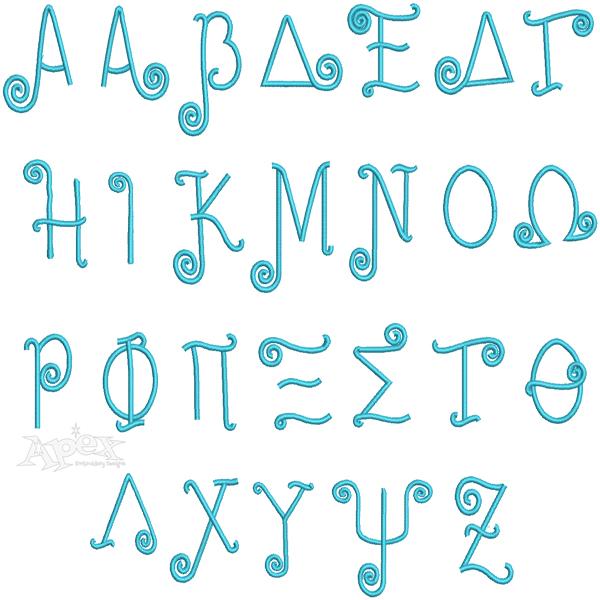
Funky Sorority Greek Font Letters Curlz
Sorority Greek Fonts Letter Curlz Curly 20 letters. Very rare font with fun funky curly lettering. View entire font in picture below. View our Animal Designs for cute retro sorority or fraternity mascots to add with lettering. Size: 1,2, 3 and 4 Inch